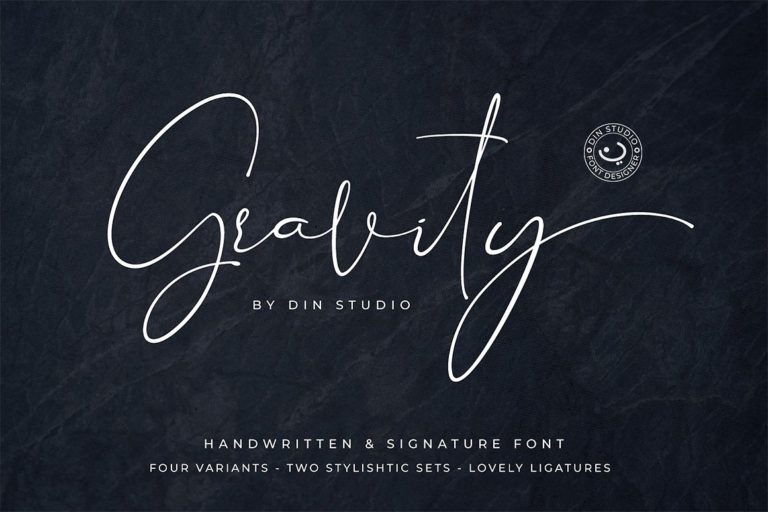
Gravity Signature Font
A perfect signature style font, it is completely manual, so it is the most authentic. If you are looking for a handwriting like that then it’s here! Introducing Gravity Font. Gravity is an created by Din Studio. Gravity – a luxury handwritten and signature font . With four font variants you can create signatures and handwriting that you like. The Gravity font has two stylishtic set features. one used for handwritten and one for signature . Gravity font built with uppercase, lowercase, numeral, punctuation , many ligatures, swashes and also support international character . This font is perfect for creating branding projects, signatures, quotes and weddings.